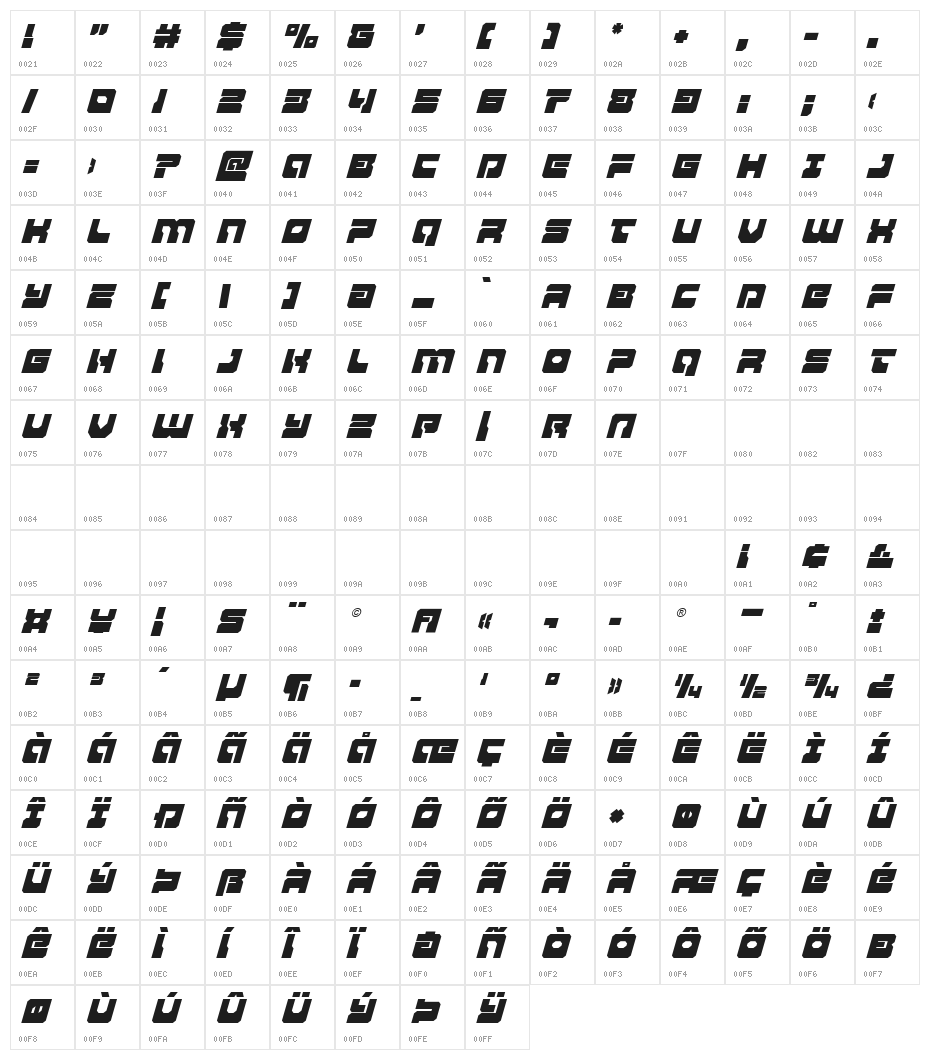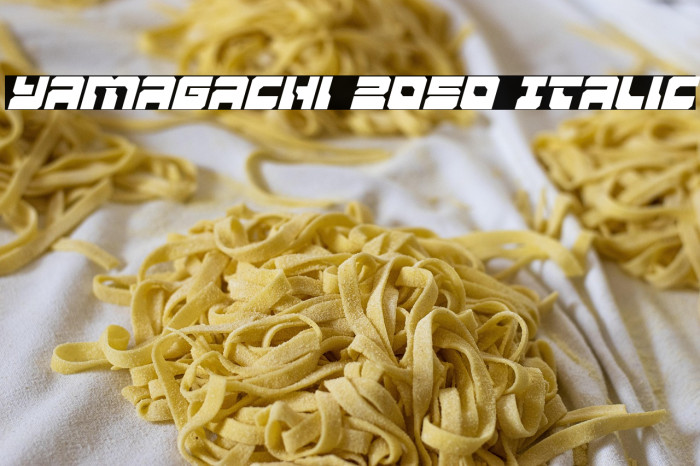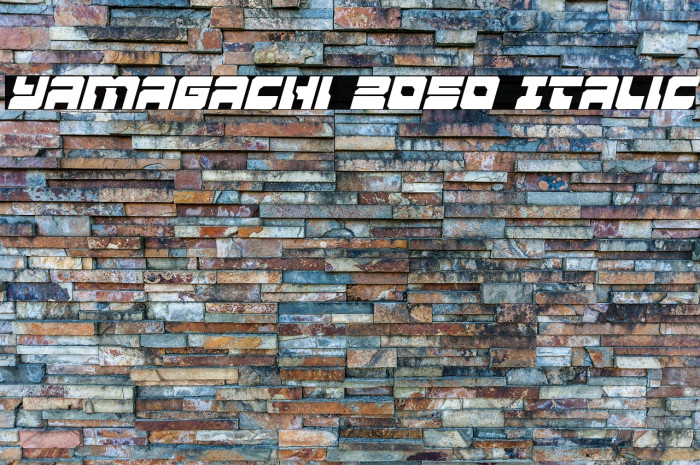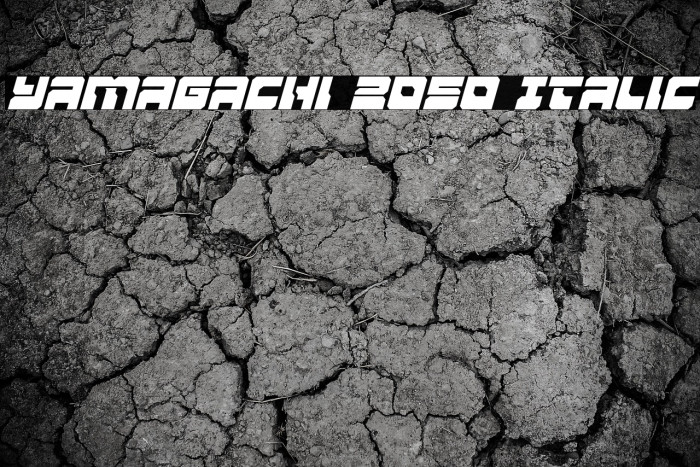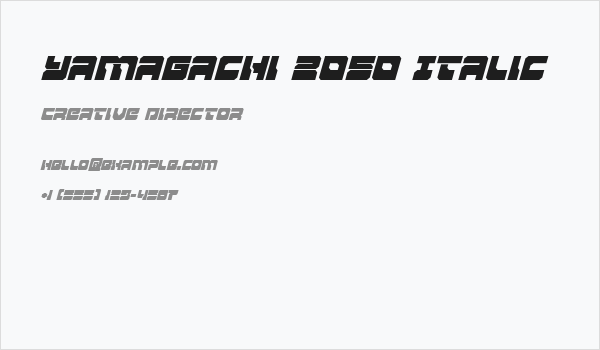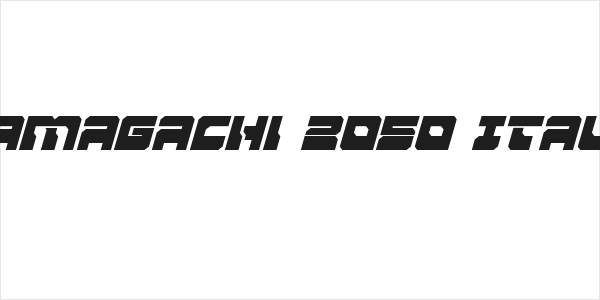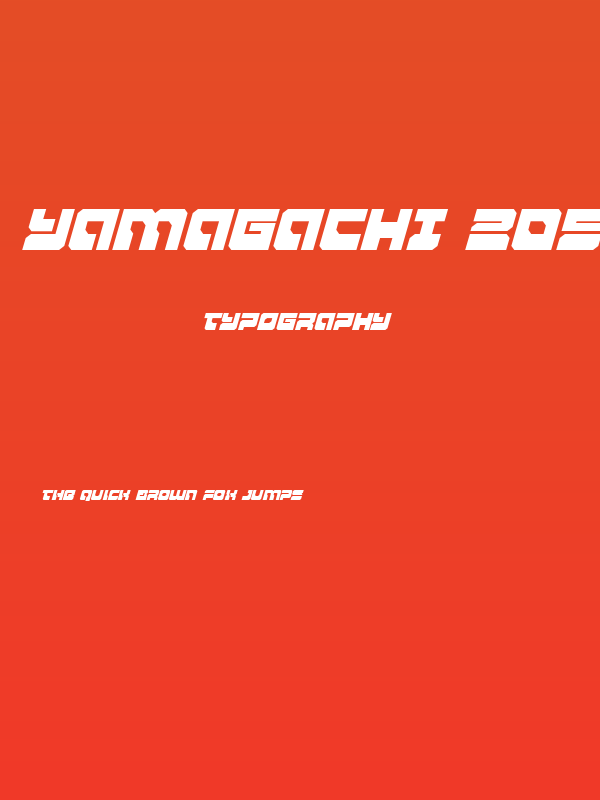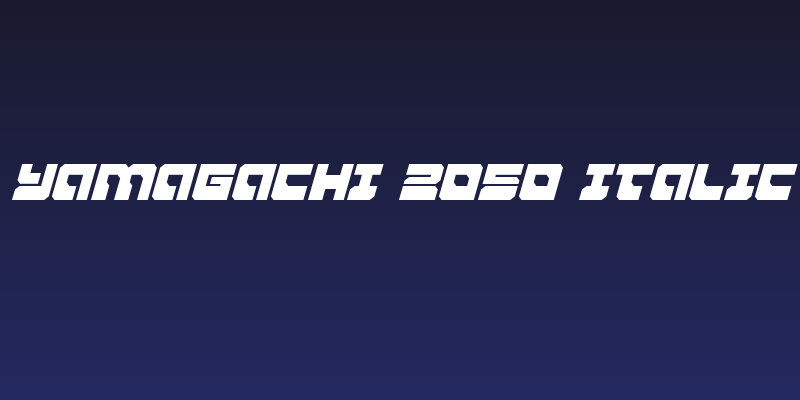
Yamagachi 2050 Italic Font
Yamagachi 2050 Italic Description
This font features a bold, futuristic design with angular, geometric shapes that convey a sense of speed and modernity. The characters are slanted, giving an italicized appearance that enhances its dynamic feel. The thick strokes and sharp edges create a strong visual impact, making it suitable for attention-grabbing headlines or branding. The font maintains a consistent weight throughout, ensuring readability despite its decorative style. The character set includes uppercase and lowercase letters, numbers, and a variety of special characters, all designed with a cohesive aesthetic.
| Proposed Projects | Ideal for sci-fi themed projects, tech branding, video game titles, and futuristic posters. |